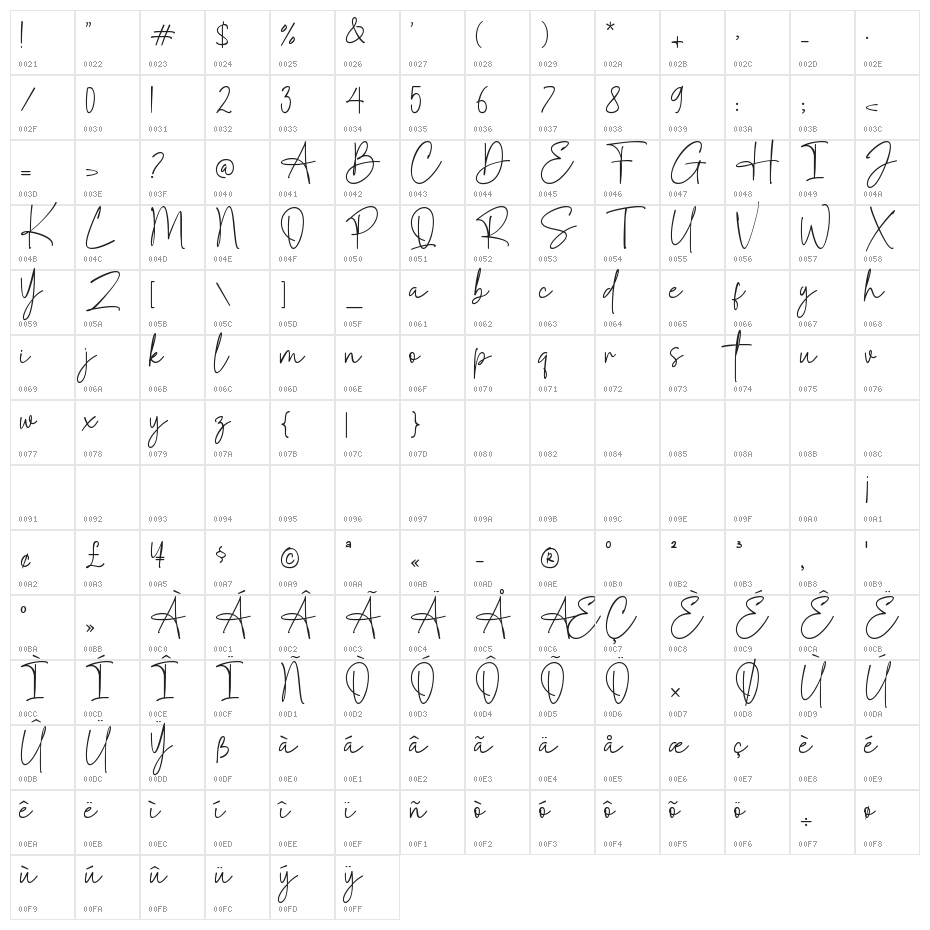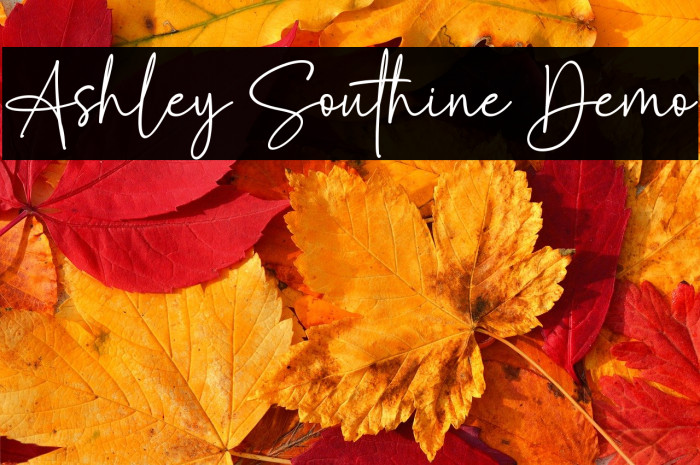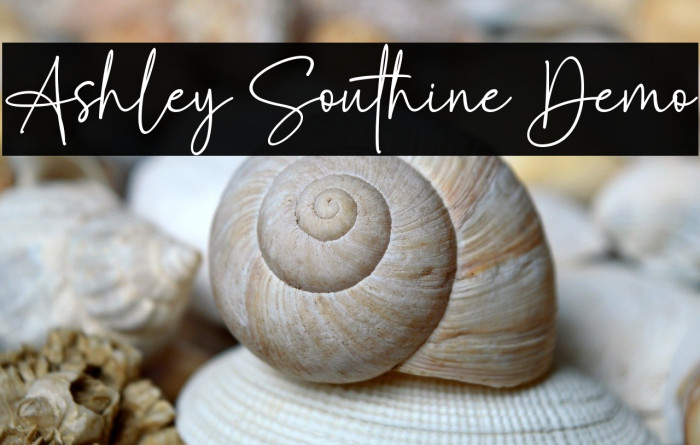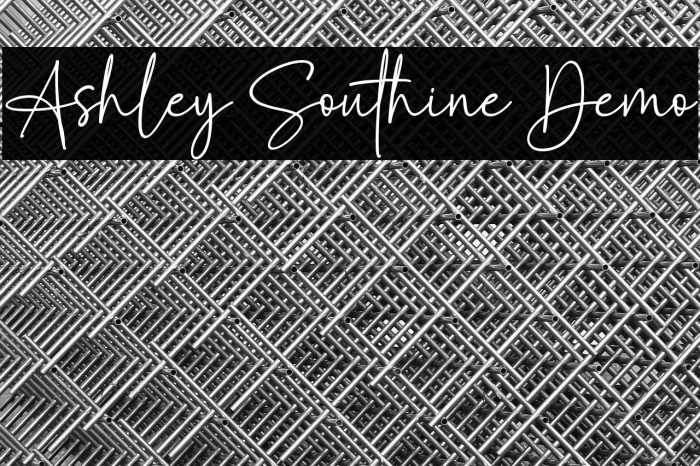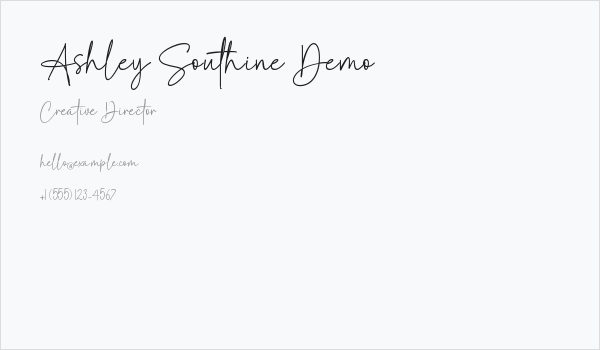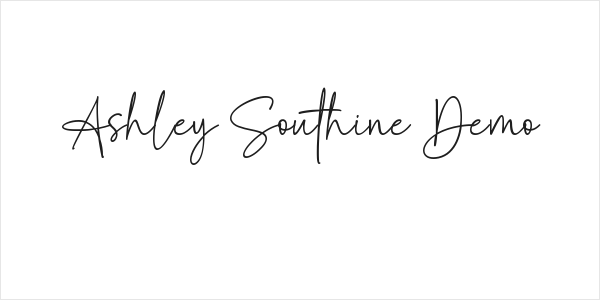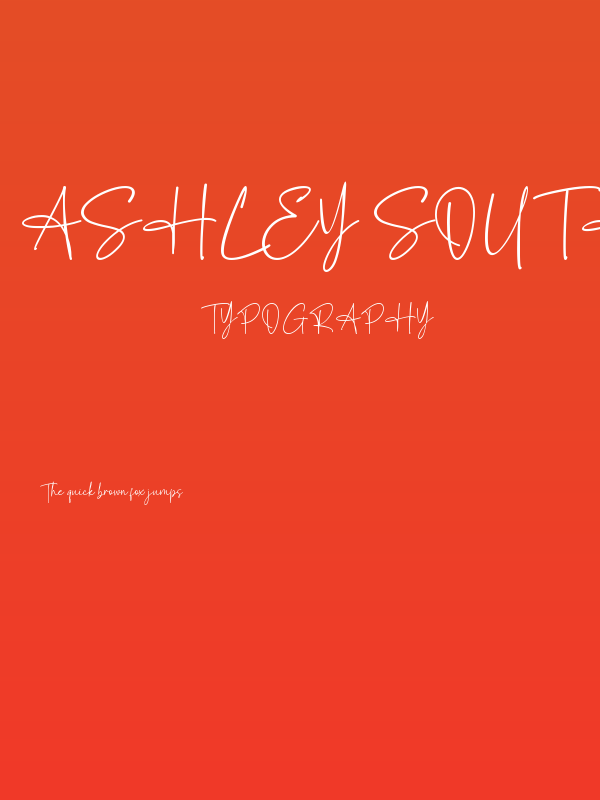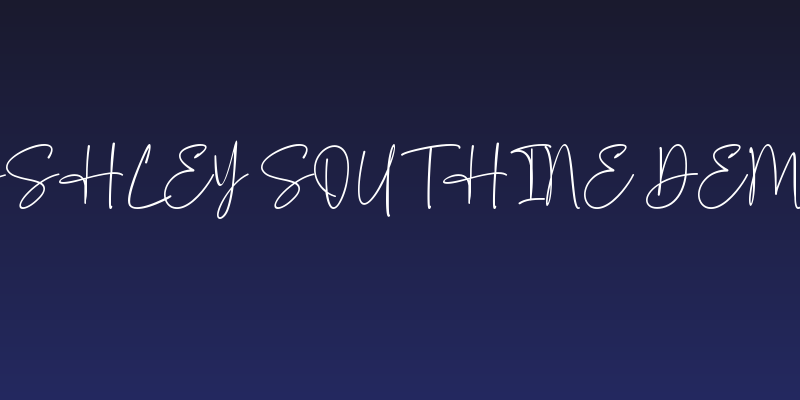
Ashley Southine Demo Font
Ashley Southine Demo Description
This font exudes a casual, handwritten charm with its flowing, cursive style. The uppercase letters are elegantly elongated, giving a sense of sophistication and grace. The lowercase letters maintain a consistent fluidity, enhancing readability while retaining a personal touch. Numbers and special characters are crafted with the same attention to detail, ensuring a cohesive look across all elements. The strokes are smooth and slightly varied in thickness, adding a dynamic feel without compromising clarity. This font is perfect for projects that require a personal, yet polished aesthetic.
| Proposed Projects | Ideal for wedding invitations, personal branding, greeting cards, and social media graphics. |